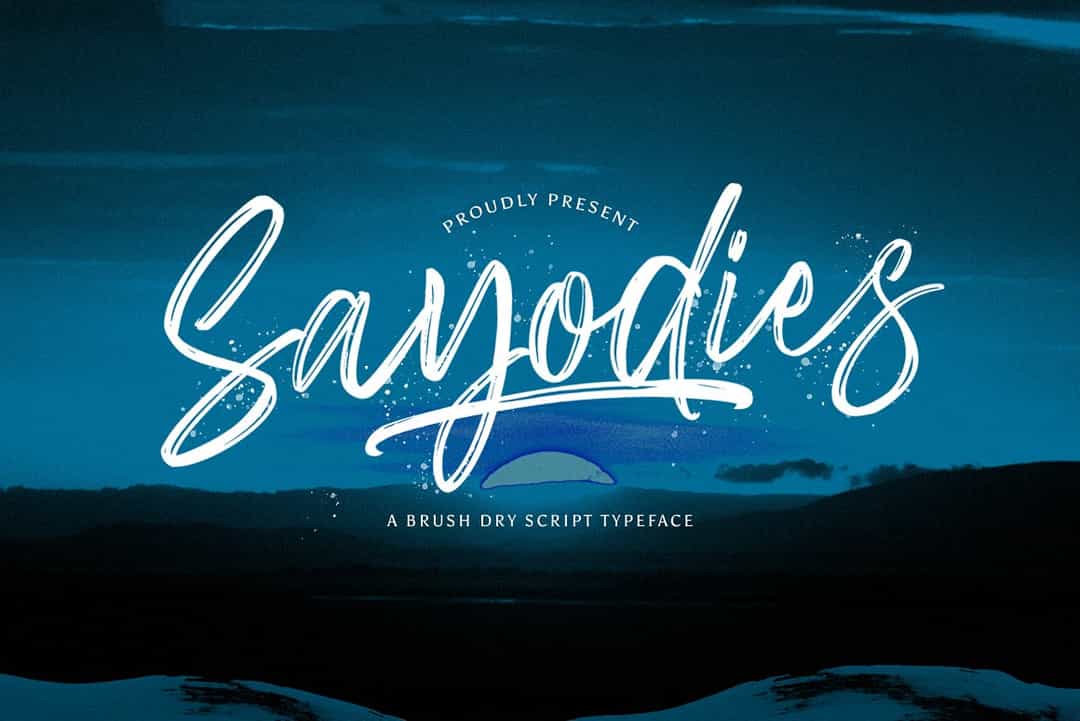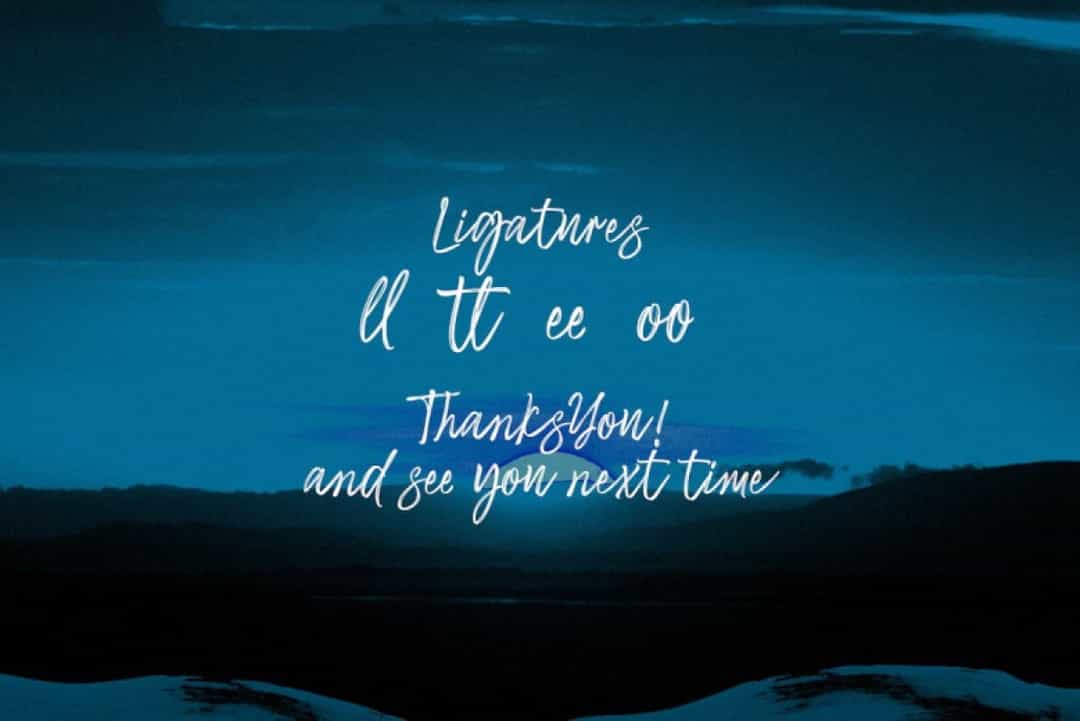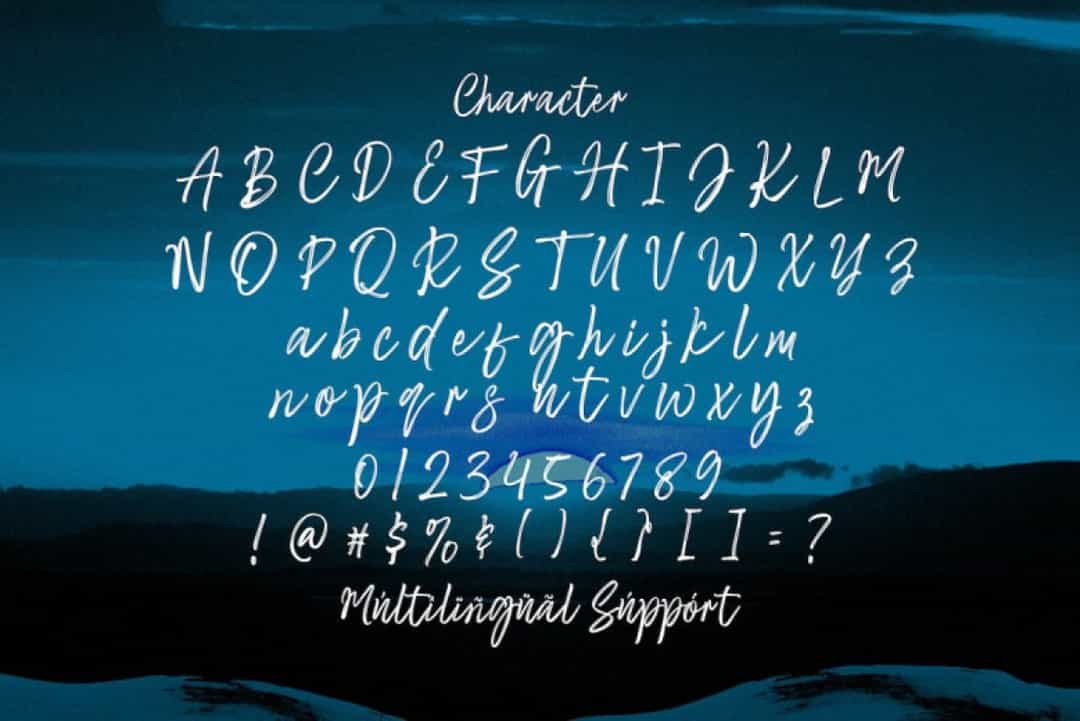
Sayodies is a casual brush script font that is drawn with brush pen. Great and unique style that you can use to get inspiration and apply it to your designs! Ideal for logos, handwritten quotes, product packaging headers, posters merchandise social media and greeting cards!